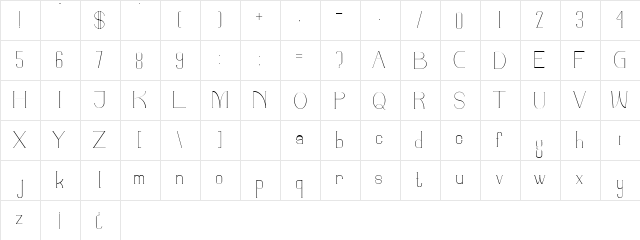
PARINOCK Regular
| Foundry | Marsha Haryanto |
| Designer | Marsha Haryanto |
Design Context for PARINOCK Typeface
PARINOCK takes a measured approach to typography — its balanced proportions and neutral character make it a reliable workhorse for both digital and print work.